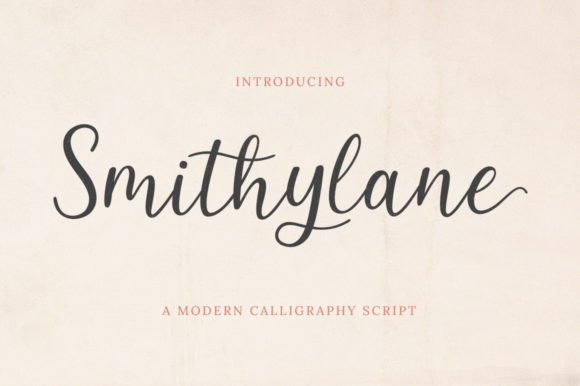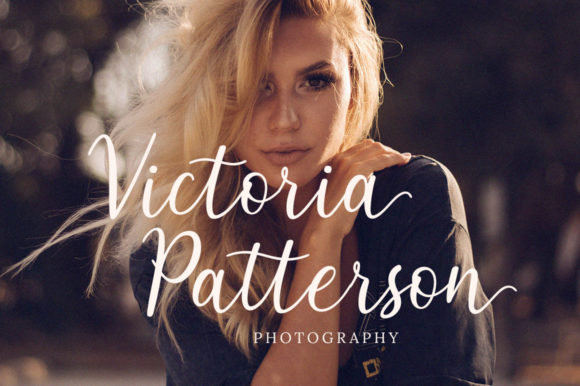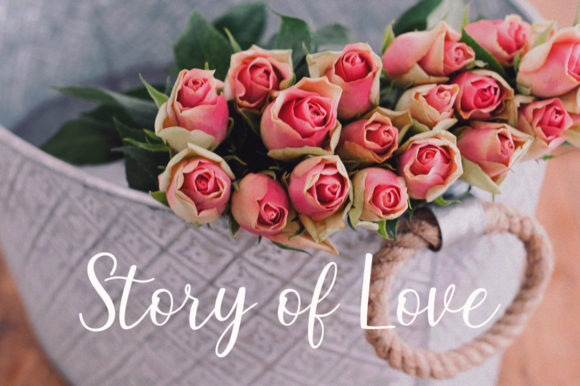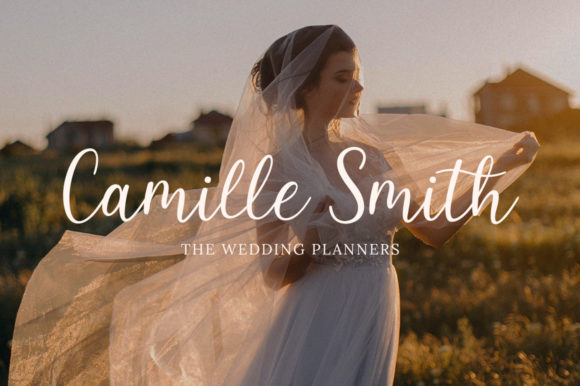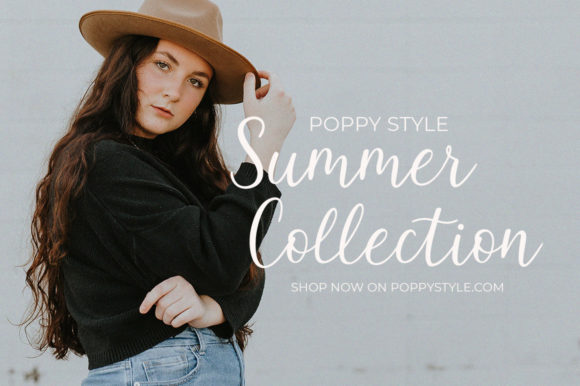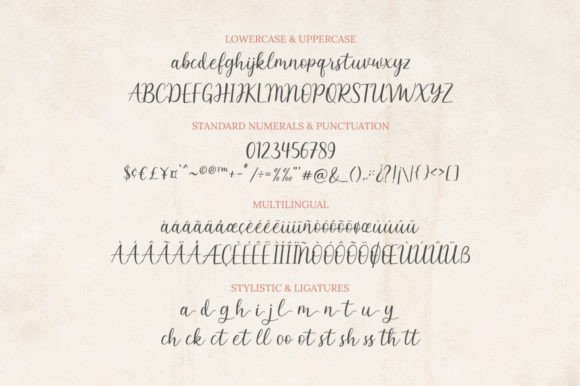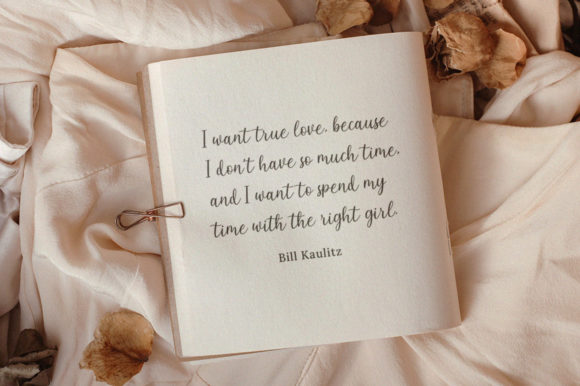
Smithylane Font
About Smithylane Font
“Smithylane” is a modern, stylish, and elegant calligraphy typeface that has been meticulously crafted to deliver maximum results. This font is designed to add a touch of elegance and class to any of your design projects, ensuring a sophisticated and refined aesthetic. With PUA encoding, accessing the extensive set of glyphs and swashes is made easy, providing designers with enhanced customization options.
The modern and stylish characteristics of “Smithylane” make it a versatile choice for a wide range of design applications. Whether used for wedding invitations, branding, logos, or any project that requires a sophisticated calligraphy touch, this font excels in conveying a sense of contemporary elegance.
The careful craftsmanship of “Smithylane” is evident in its graceful letterforms and refined strokes, making it a standout choice for projects that demand a high level of sophistication. The font’s elegant calligraphy is well-suited for creating visual identities that exude style and professionalism.
In wedding invitations, “Smithylane” can bring a romantic and luxurious feel, enhancing the overall presentation of the special occasion. The font’s modern and elegant calligraphy ensures that it adapts seamlessly to various design contexts, allowing for versatility and creativity.
In summary, “Smithylane” transcends being merely a font; it becomes a design asset that adds modernity, style, and elegance to your projects. With its carefully crafted calligraphy, this font is a valuable addition to your toolkit, providing the means to infuse sophistication and class into a variety of design endeavors.